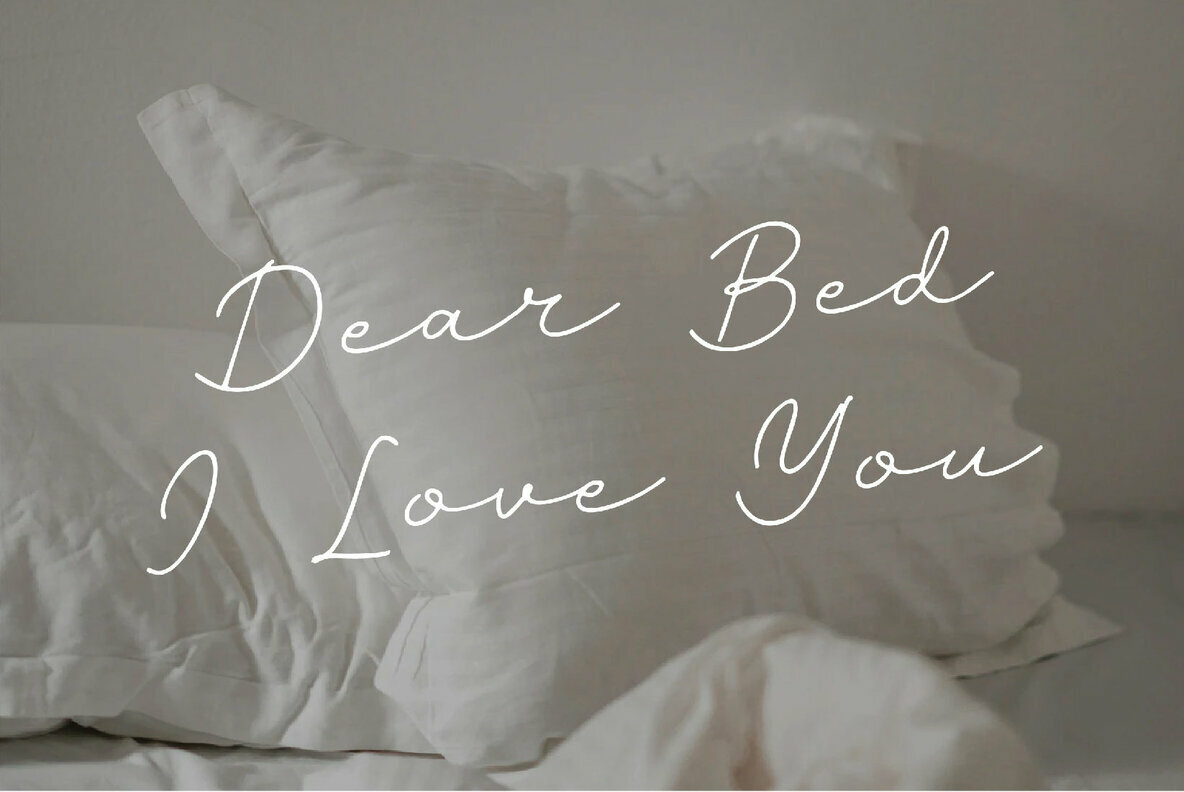
Paslime Font
Paslime Regular
Paslime captures the essence of genuine handwriting through its digital brush pen strokes. Designed with authenticity in mind, this script font adds a personal touch to your projects, making it a perfect choice for various creative applications.Paslime: Authentic Script Font in Handwritten Style